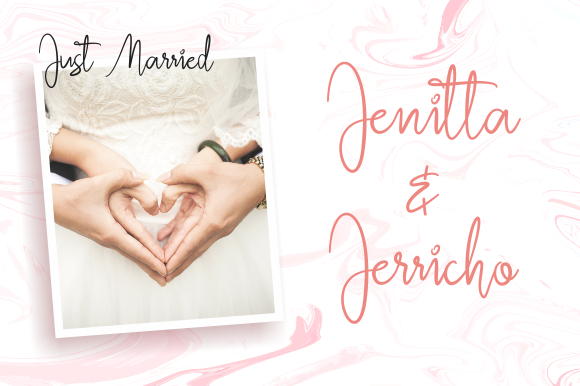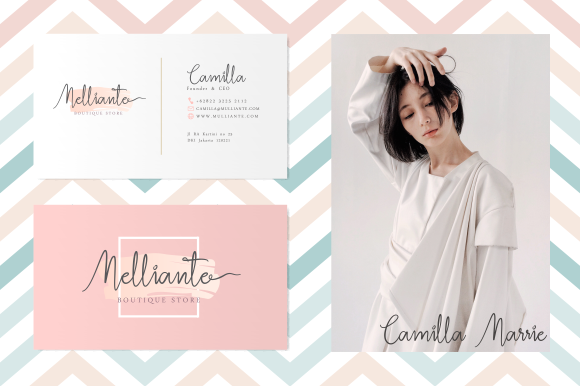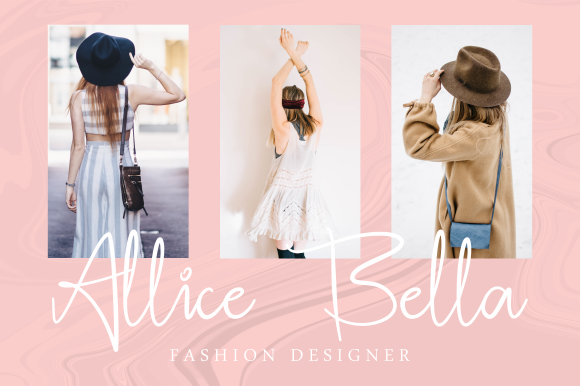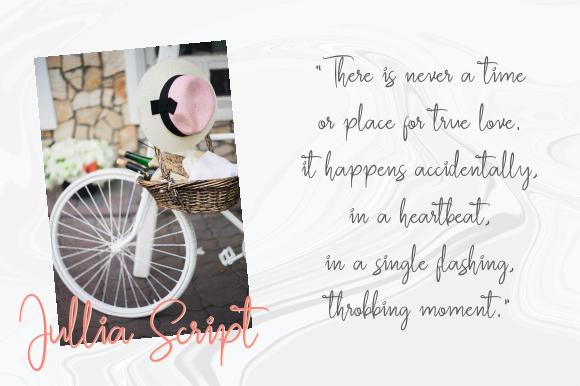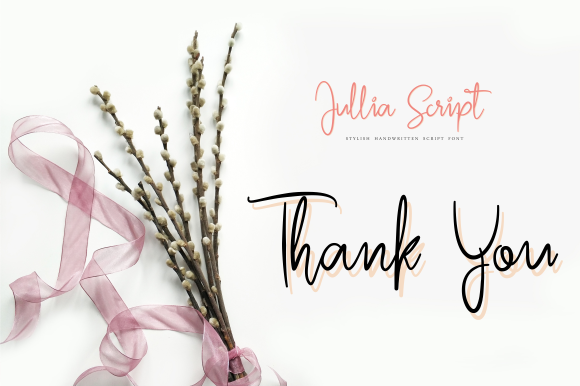
Jullia Script Font
About Jullia Script Font
The Jullia is a beautiful handwritten script font. It was carefully crafted and is perfect for logos, name tags, quotes, wedding invitations, greeting cards, and much more!